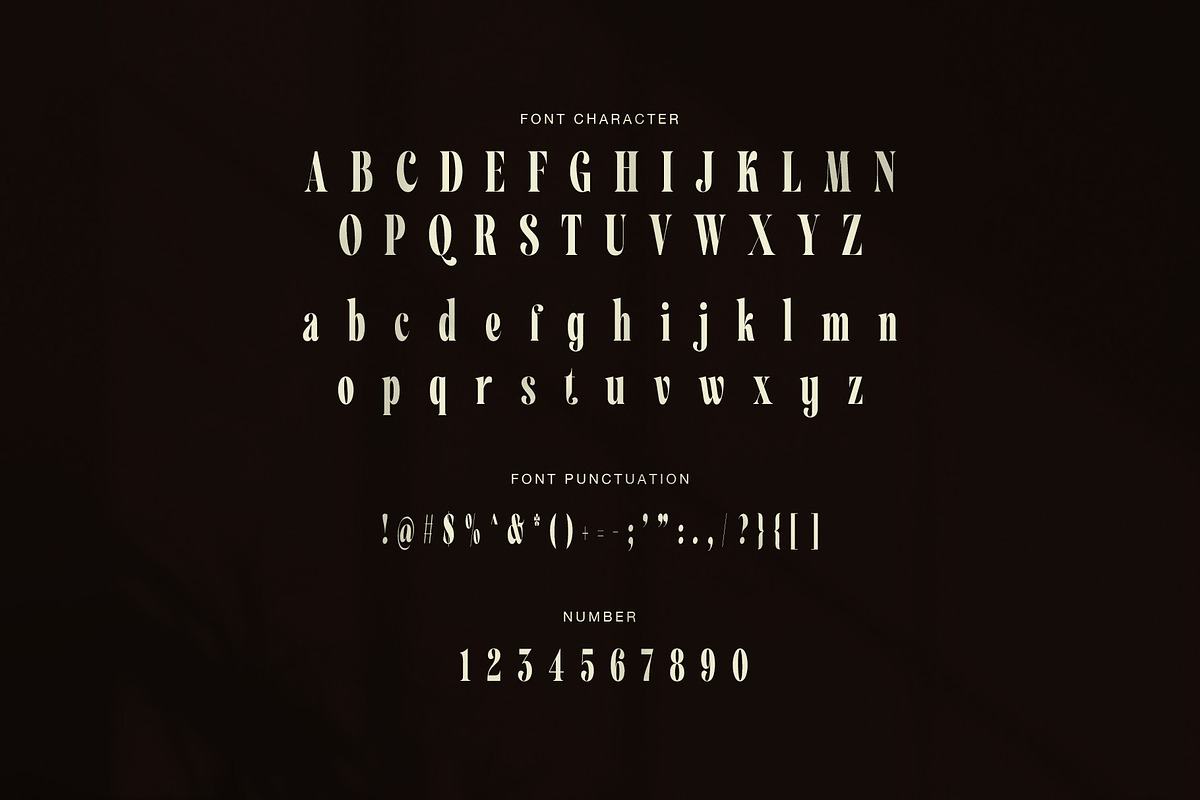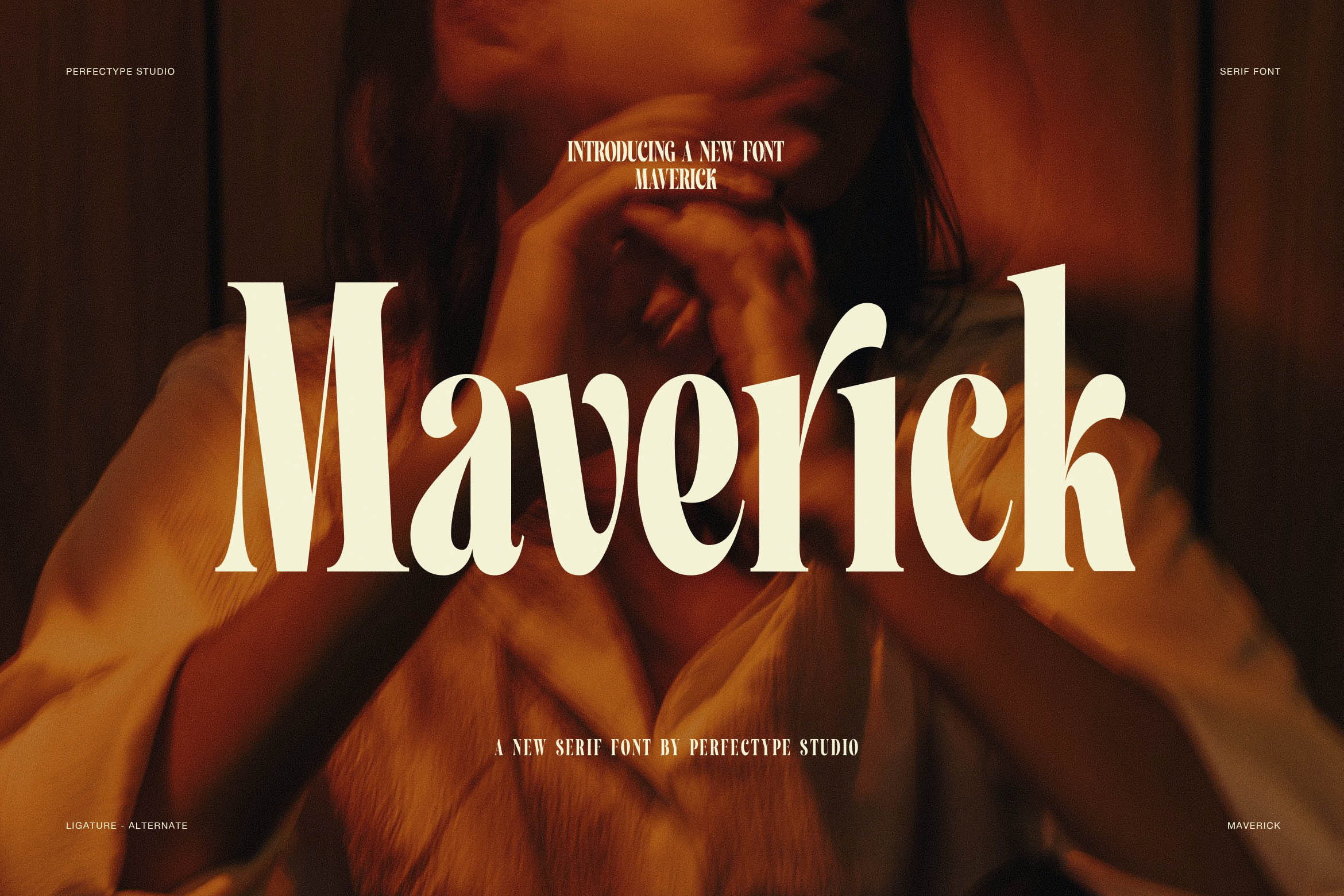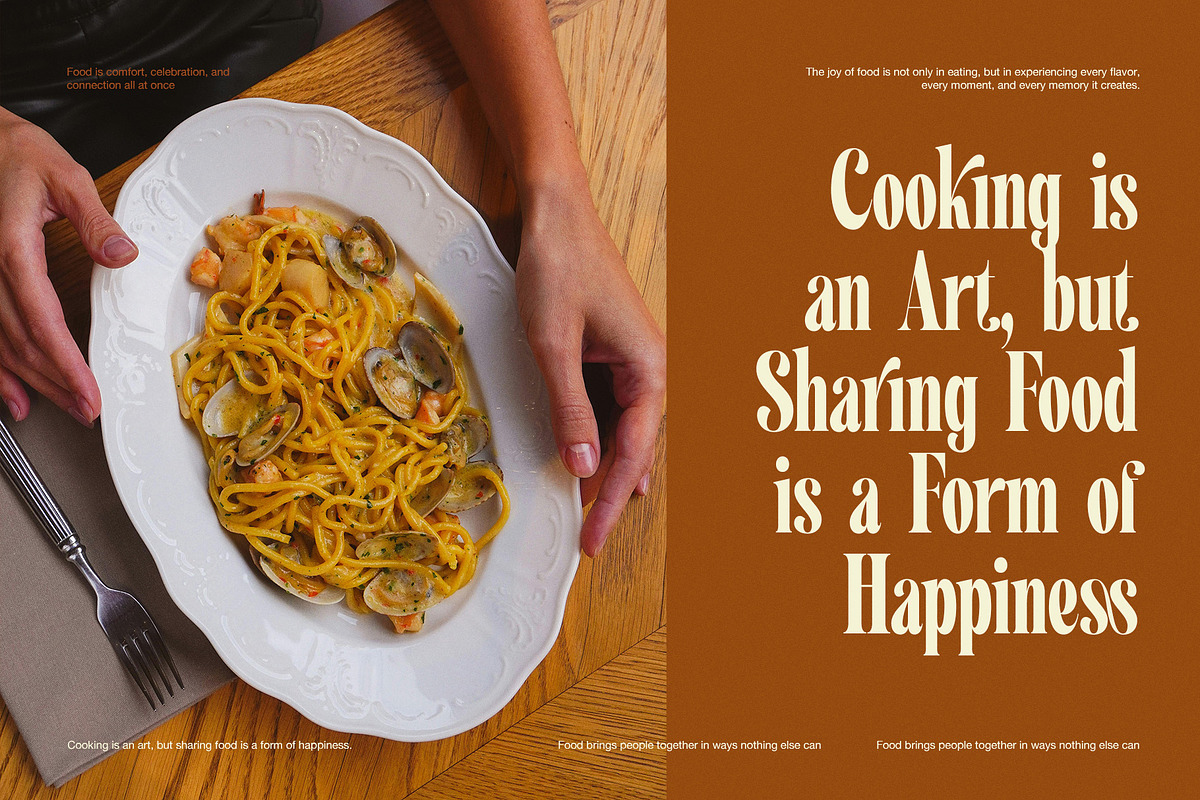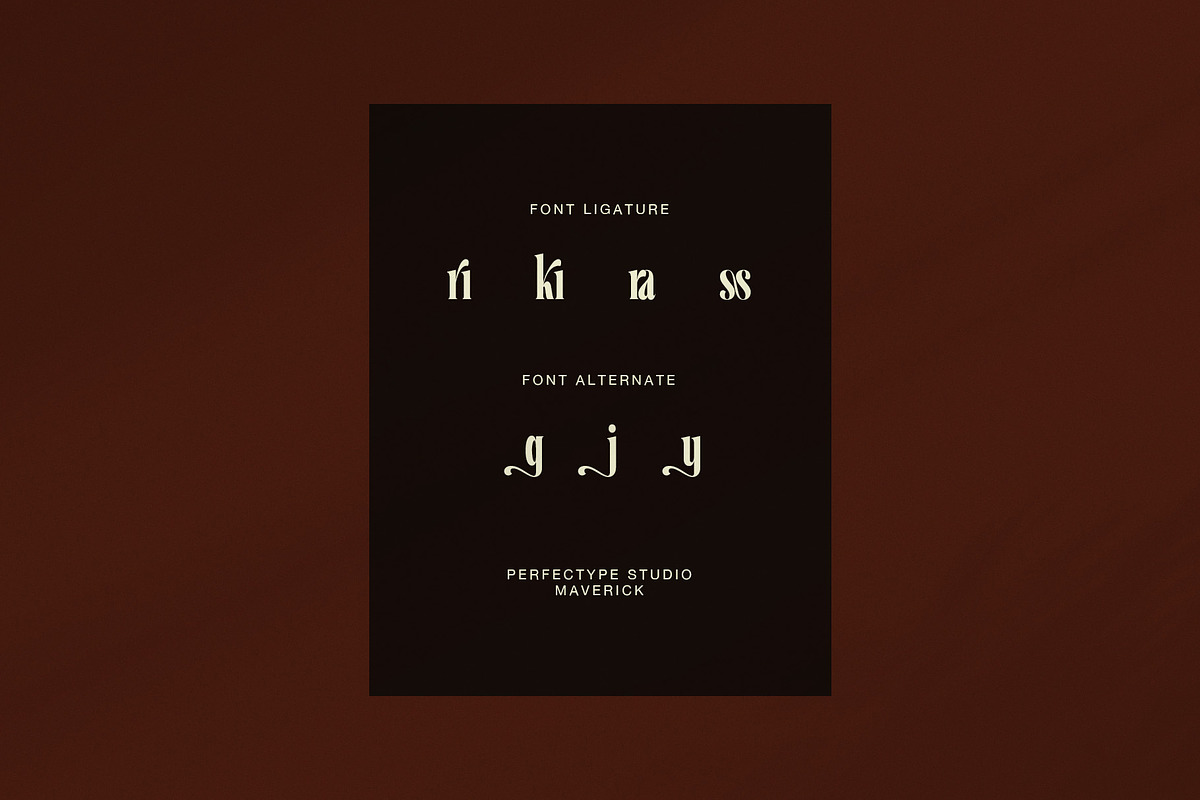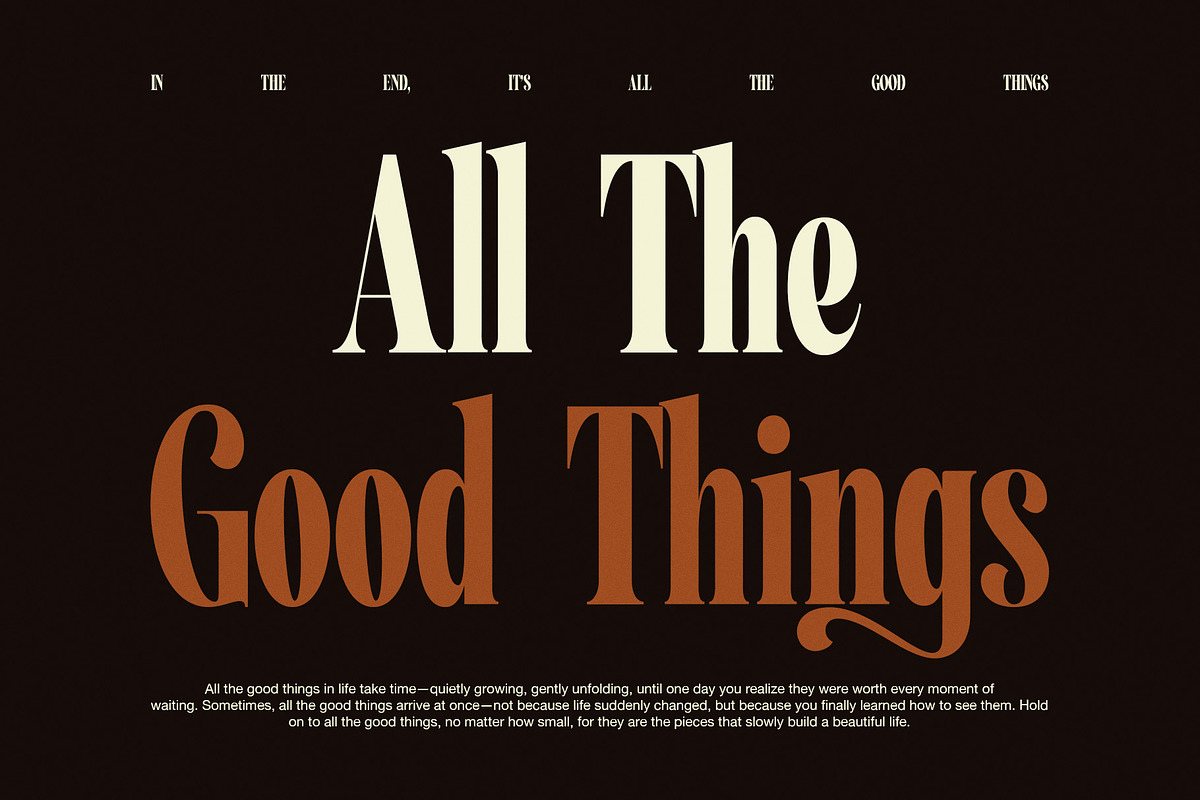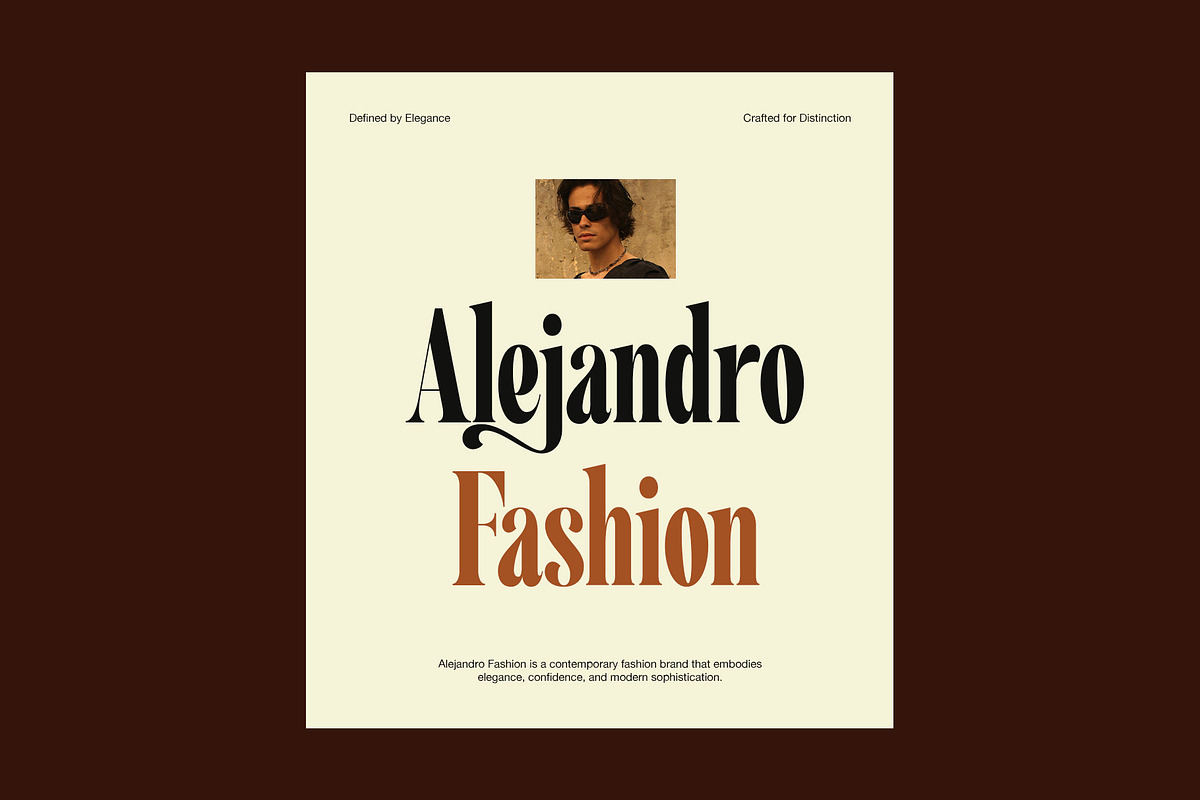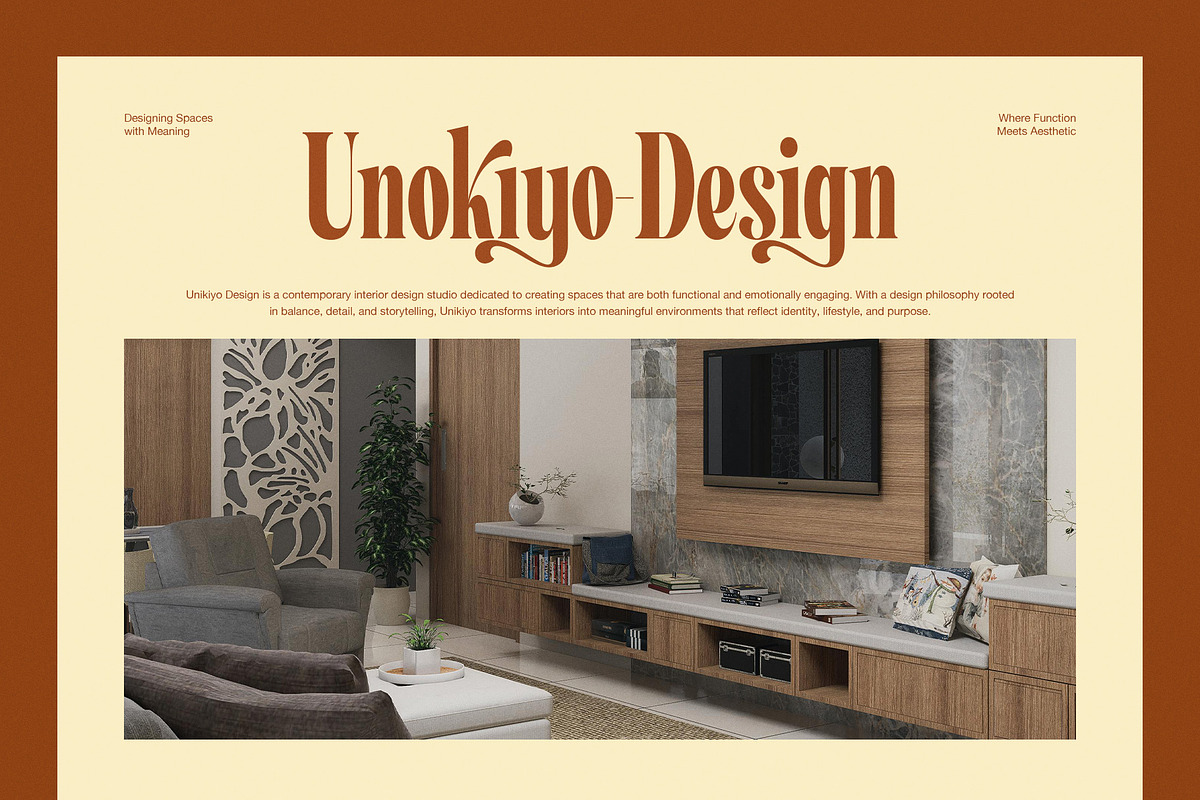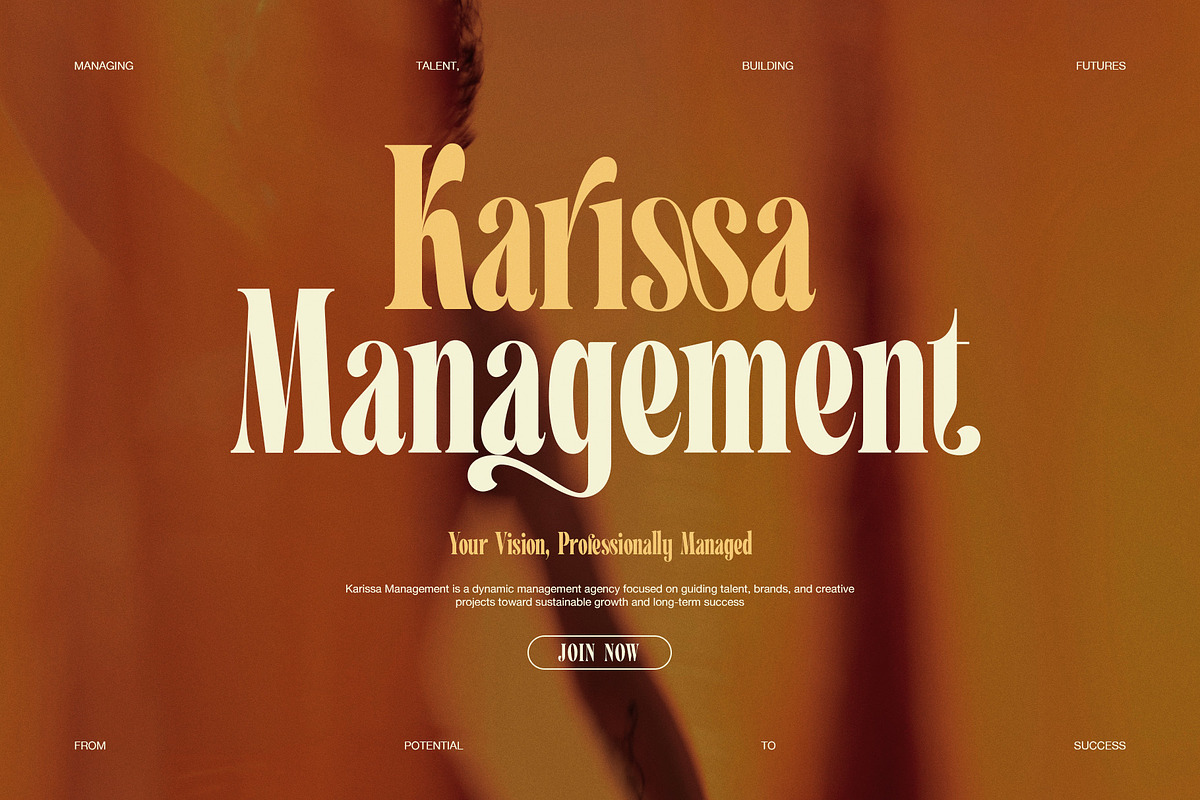
Maverick Luxury Serif Font
Maverick is a luxury serif font with a bold, elegant, and artistic look. It is made for designers who want strong typography with a premium feel. The tall letter shapes, sharp contrast, and stylish curves give each word a refined visual impact. Therefore, Maverick works well for brands that need beauty, confidence, and clear style.
Elegant Serif Character
This elegant serif font has a strong display style. Its thick and thin strokes create a rich contrast, while the narrow forms make headlines look tall and graceful. In addition, Maverick includes beautiful alternates and ligatures that help your text feel more custom. These details are useful for logos, titles, packaging, and social media designs.
Best Design Uses
Maverick is a great choice for many creative projects. It can make simple layouts look more polished, yet it still feels easy to read when used with care. Because of its bold style, this font is best for large text and premium brand moments.
You can use Maverick for:
Luxury logo design
Fashion branding
Wedding invitations
Beauty product packaging
Magazine titles
Restaurant and food branding
Interior design studios
Editorial layouts
Posters and advertising
Social media templates
Premium Branding Style
Maverick brings a warm and classy mood to modern design. However, it can also look bold and dramatic with dark colors, rich brown tones, and clean layouts. The font is especially strong for fashion, lifestyle, beauty, and creative studio branding. As a result, your design can feel more professional and more memorable.
Modern Display Benefits
Use Maverick when you need a luxury serif font that feels stylish, confident, and expressive. Its alternate letters and ligatures add charm without making the design look too busy. Moreover, the font gives your work a high-end look with very little effort.
Maverick is a strong choice for designers who want a modern serif font with elegance, power, and a premium editorial touch.